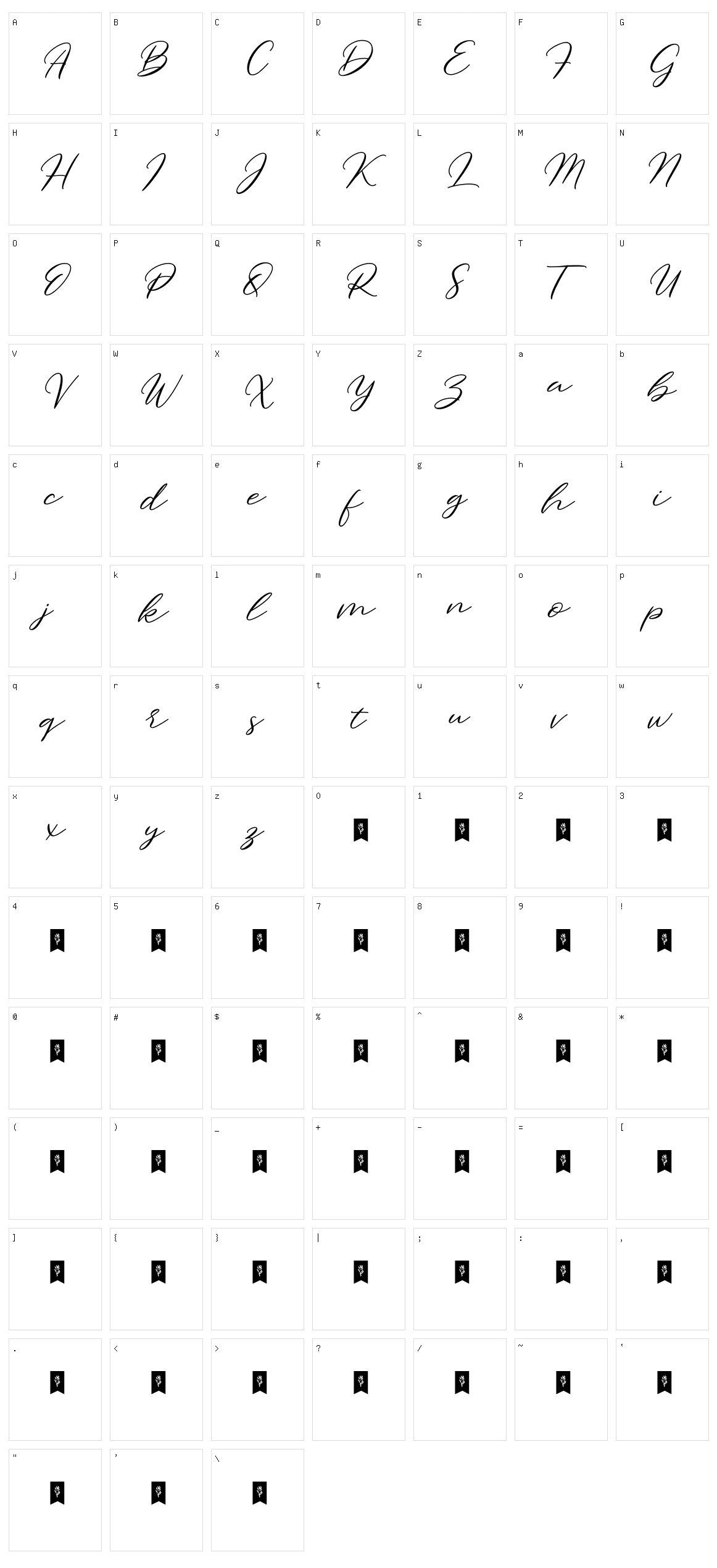
The free font Olla Julietta is carefully designed by Cupcake Std, showcasing a thoughtful balance of creativity and usability and falls under the Script font style. When you download the ZIP file, it contains only 102 KB of font files, making it lightweight and quick to download. Please review the license details below to understand permitted usage and distribution rights. If license information is not available, we recommend using this font for personal projects only or contacting the author directly for commercial usage permissions.